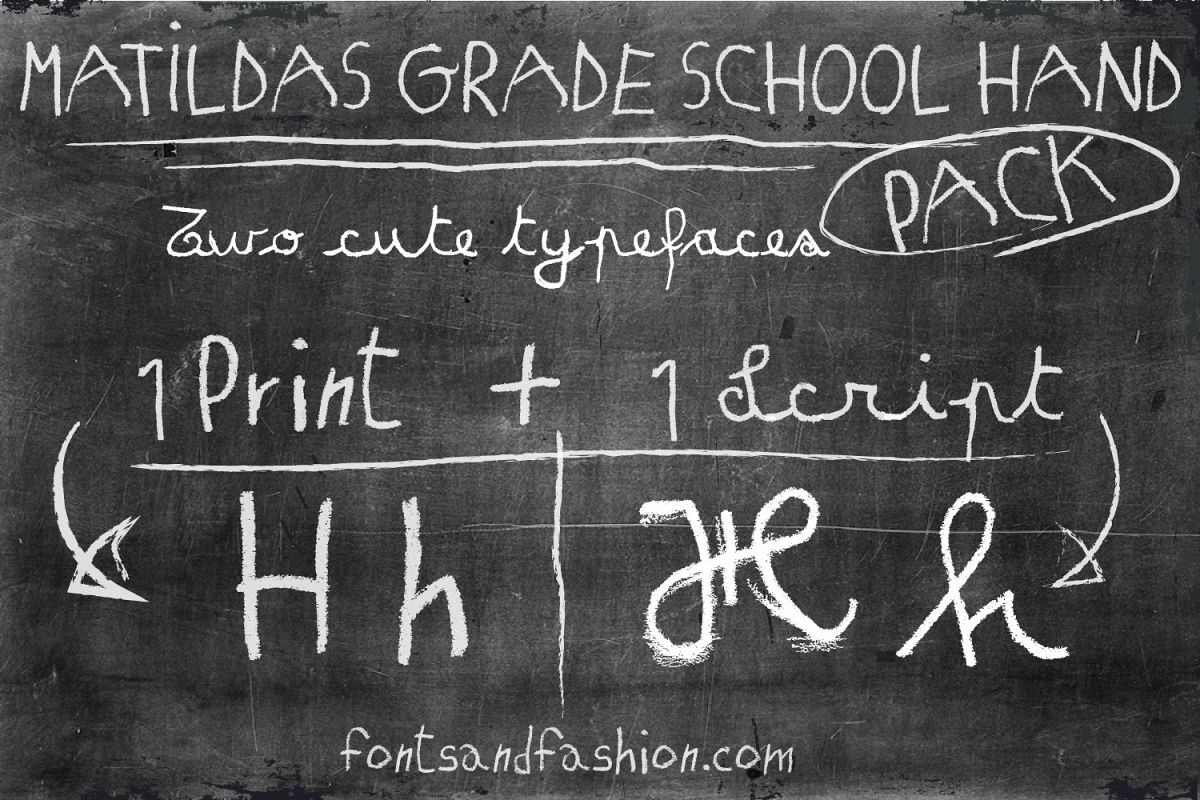
Matildas Grade School Hand_Pack
MATILDAS GRADE SCHOOL HAND_print
“MATILDA'S GRADE SCHOOL HAND_pack” is a font family, formed by 2 different fonts, inspired by my little niece's handwriting.
Her name is Matilda and she is six years old. She started Primary school, and when she showned me her first written alphabet, I fell in love with it immediately!!! It's so cute!!! I love her shaky writing.
I find it so funny and lively that all letters are so different one from another…. They are untidily perfect!
Well, this is the short story about how “MATILDA,S GRADE SCHOOL HAND_pack” fonts was created and how it has evolved into giving life to two special handwriting chalk characters:
• “MATILDAS GRADE SCHOOL HAND_print”
• “MATILDA'S GRADE SCHOOL HAND_script”
You can mix them as you prefer, so you can create every time, a fresh, genuine, peppy and amusing unique style for your artwork projects.
Are you ready to go back to the chalkboard?!?